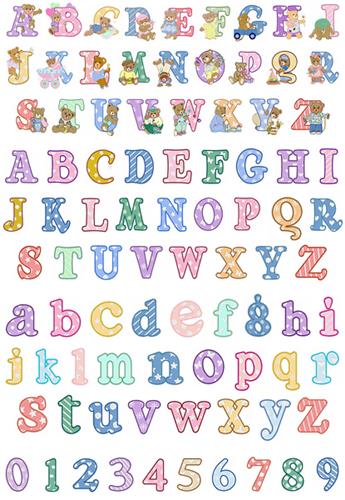
Embroidery Patterns is happy to present Teddy Fun machine embroidery font which has Playful decorative machine embroidery font featuring unique patterns and teddy bear images, ideal for holiday-themed projects on children's apparel and accessories. Available in PES, DST, and 11 other formats. included. If you would like to view more embroidery fonts and alphabets please search our embroidery fonts page.